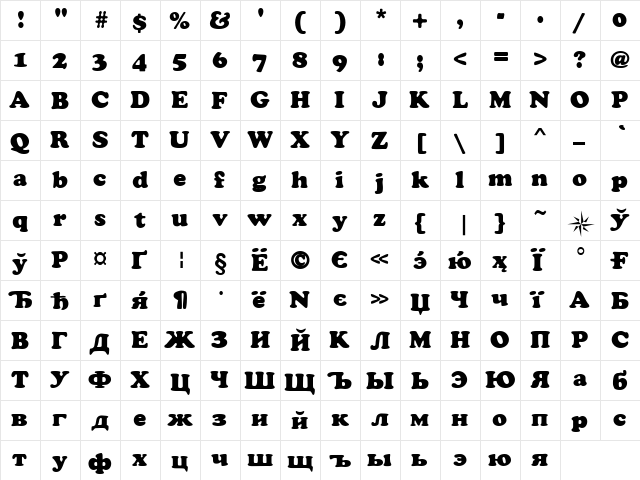
CyrillicCopper Medium
Design Context for CyrillicCopper Typeface
CyrillicCopper offers clean, dependable letterforms without strong stylistic allegiance, making it a practical choice for designers who need flexibility.
Pro Tip: Use CyrillicCopper in both headline and body roles to test its range before committing to a single application.